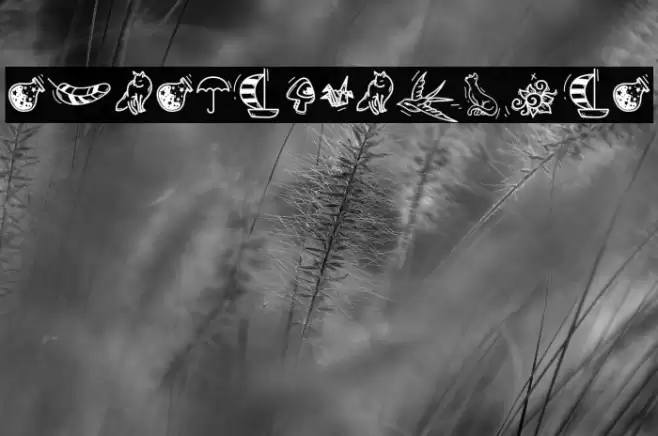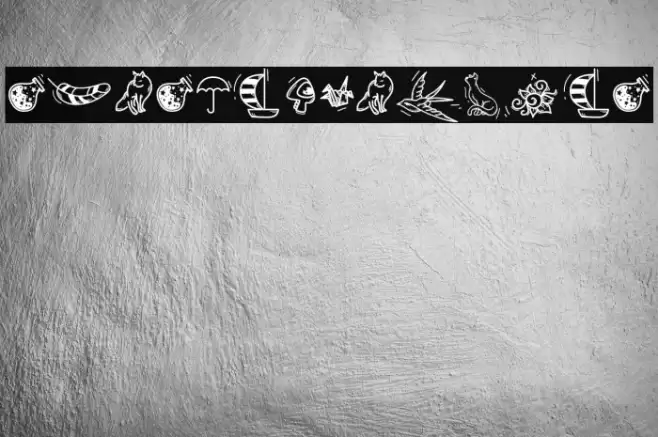
SunsetDingbats Font
SunsetDingbats Description
This is a decorative dingbat font featuring a variety of whimsical and playful symbols. The characters include a mix of nature-inspired elements like birds, suns, moons, and plants, as well as everyday objects such as umbrellas, hearts, and cups. Each symbol is intricately designed with a hand-drawn aesthetic, giving it a unique and artistic flair. The style is consistent throughout, with a balance of bold outlines and detailed inner designs. This font is perfect for adding a touch of creativity and fun to any project.
A whimsical dingbat font with playful, hand-drawn symbols from Uncategorized fonts.
- Proposed Projects: Ideal for creative projects such as greeting cards, scrapbooking, and decorative posters.
- Use Case: Logos, Decorative elements